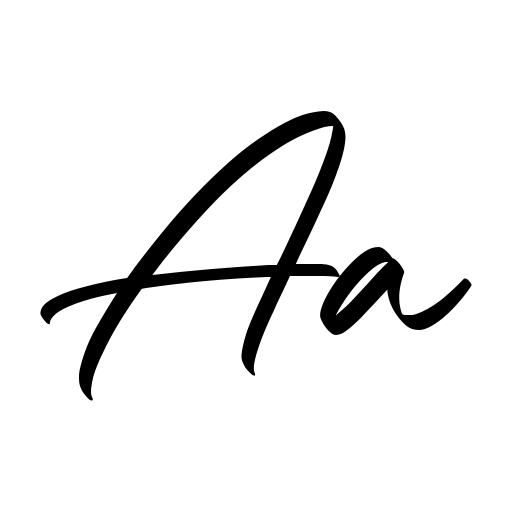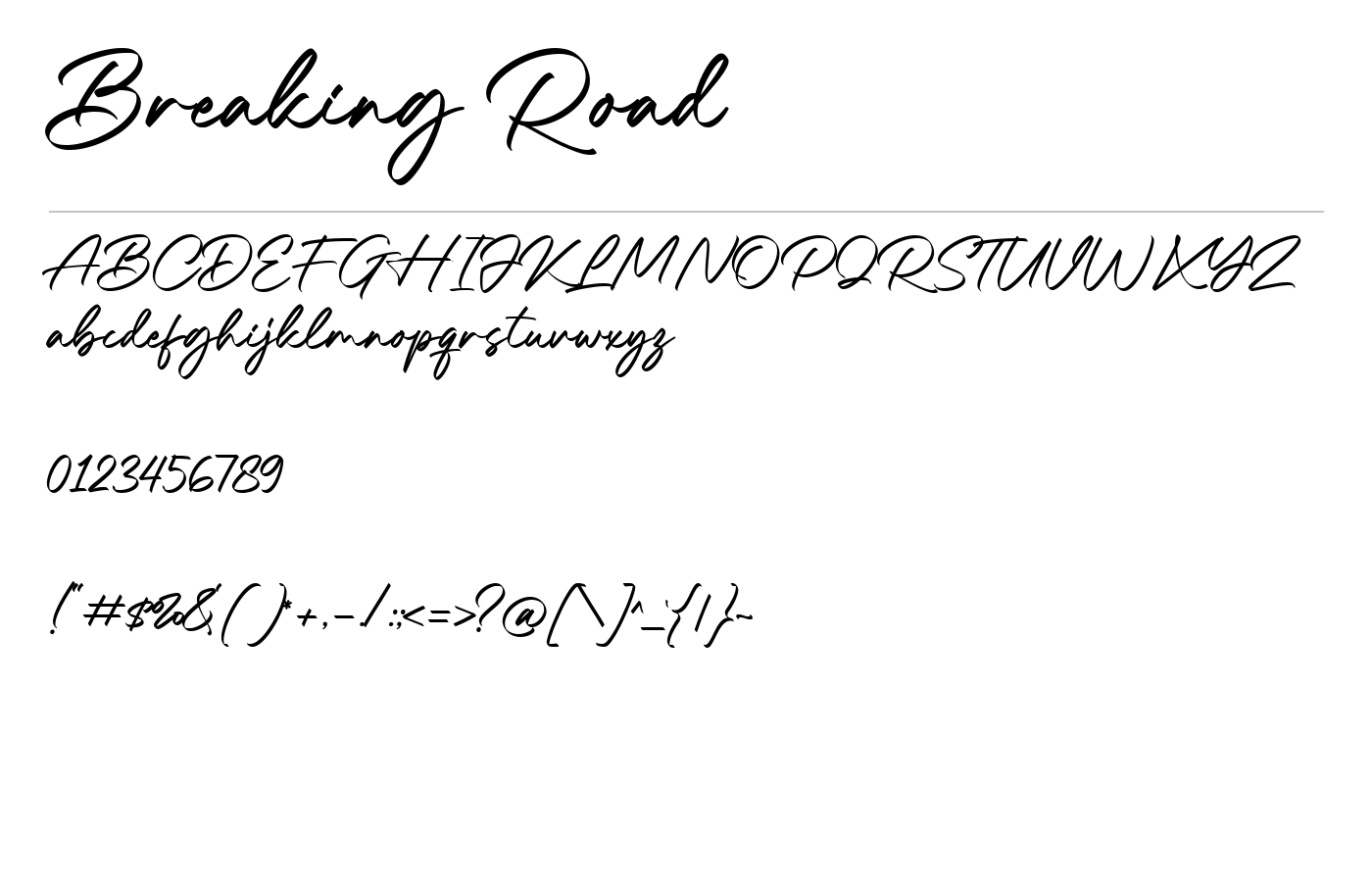
Breaking Road is a stylish and flowing script font that mimics elegant, hand-drawn calligraphy with its smooth strokes and natural slant. Its light weight and delicate curves give it a refined yet approachable feel, making it ideal for branding, invitations, and creative projects that seek a personal and sophisticated touch. This font works best for headlines, logos, or decorative text where graceful, charming expression is desired.
Breaking Road Font
About Breaking Road Font
| Font family | Breaking Road Font |
| Designer | Eep Apringga |